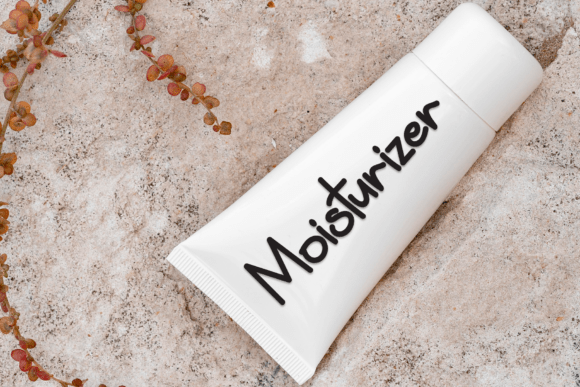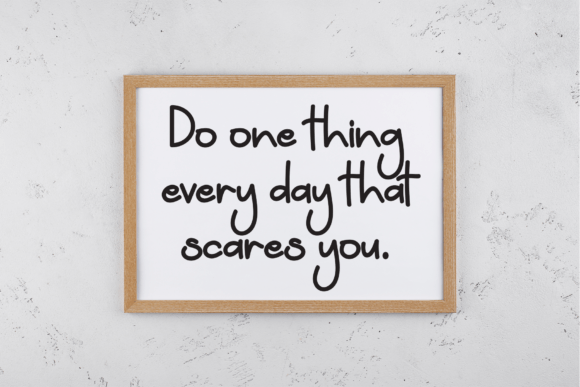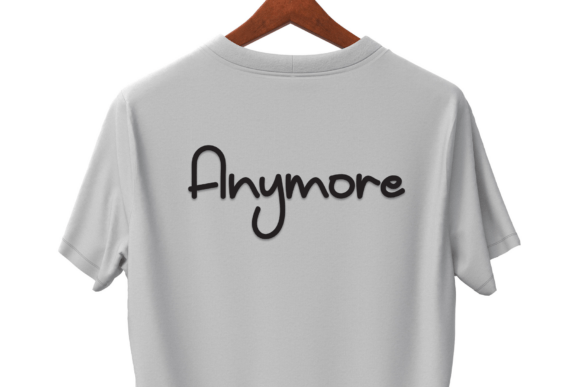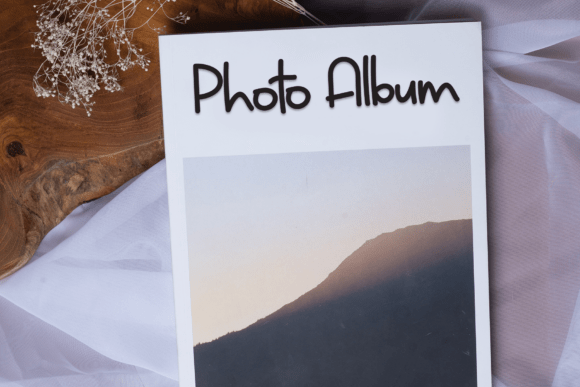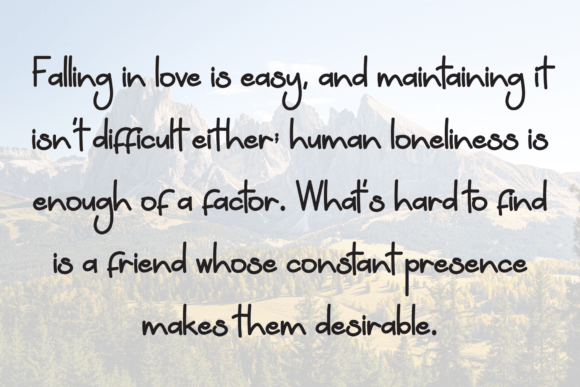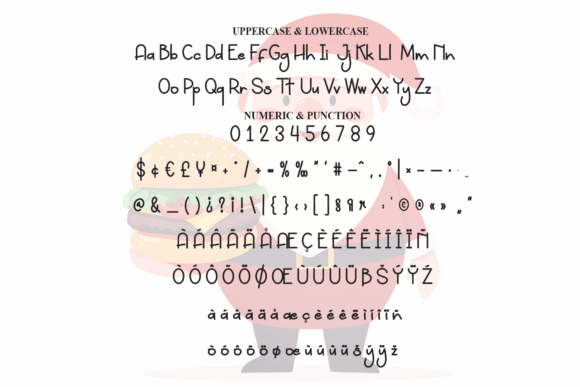
Introduction to Santa Sandwich Font
As a designer, there’s nothing quite like the rush of creating something from scratch. The blank page stares back at you, waiting for your imagination to bring it to life. And then, it happens – a spark of inspiration, a flash of creativity, and suddenly you’re envisioning the perfect project. For those moments when you need a little extra magic, we’re excited to introduce the Santa Sandwich Font – a game-changing design resource that’s about to become your new best friend.
With its unique blend of style and sophistication, the Santa Sandwich Font is the perfect addition to any creative project. Whether you’re working on a high-end advertising campaign or a personal passion project, this versatile font is sure to bring your vision to life in stunning detail. And the best part? It’s available for free download, so you can get creative without breaking the bank.
Key Features of Santa Sandwich Font
- High-quality, bold, and playful design perfect for creative projects and festive designs.
- Designed to evoke the spirit of the holiday season, this font is ideal for Christmas-themed designs, gift tags, and more.
- Perfect for adding a touch of whimsy and personality to your designs, the Santa Sandwich Font is a valuable addition to any design resource.
Honest Review: Santa Sandwich Font
I recently stumbled upon the Santa Sandwich Font, a quirky addition to any creative project. The font has a playful, whimsical feel that’s sure to add a touch of magic to your designs.
Here are some of the things that work well with the Santa Sandwich Font:
- ✨ Unique and quirky design that’s perfect for creative projects
- ⚠️ Limited character set, which may not be suitable for longer pieces of text
- ⚠️ Not as versatile as some other fonts, which may limit its use in certain design contexts
Overall, the Santa Sandwich Font is a fun and quirky addition to any design project. While it may have some limitations, its unique design and high quality make it a great resource for designers looking to add some personality to their work.
Santa Sandwich Font
Tips for Getting the Most Out of the Santa Sandwich Font
Use the Santa Sandwich Font on a transparent background to create a visually appealing effect. Experiment with different font sizes and colors to find the perfect combination for your project.
Common Use Cases for the Santa Sandwich Font
The Santa Sandwich Font is perfect for holiday-themed projects, such as Christmas cards, gift tags, and party invitations. It’s also great for creating a fun and playful atmosphere in your designs.